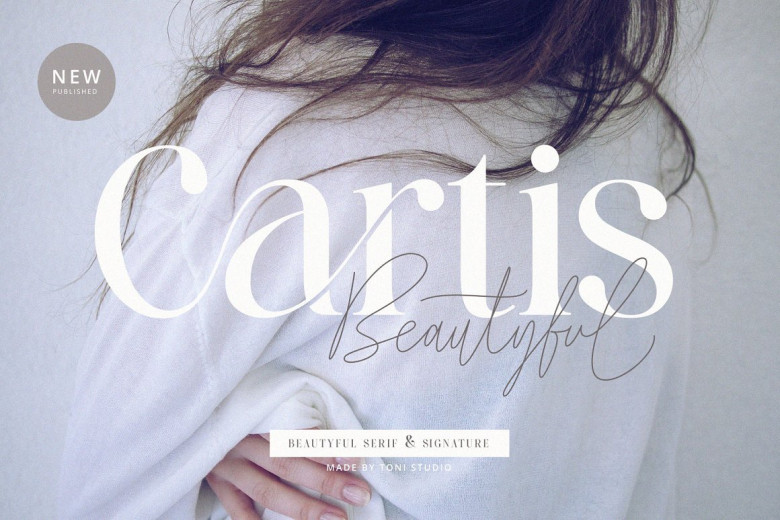
Cartis Beautyful Font
Cartis Beautyful Font Duo has arrived! A combination of serif and handwritten font, Cartis Beautyful Font Duo gives an elegant yet casual appearance. High contrast serifs with alternate flows paired with natural handwritten script help create an eye-catching modern aesthetic,
ideal for titles, logos invitations apparel packaging branding advertising etc. Using this gorgeous font will engage readers and stand out among competitors’ promotions in your work.
Cartis Beautyful Font Duo